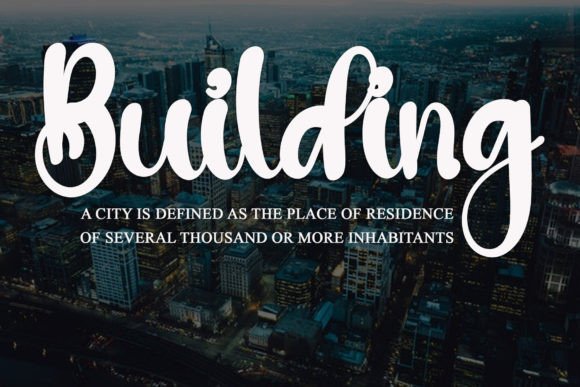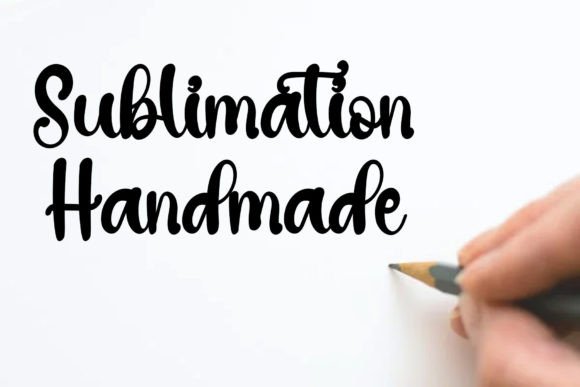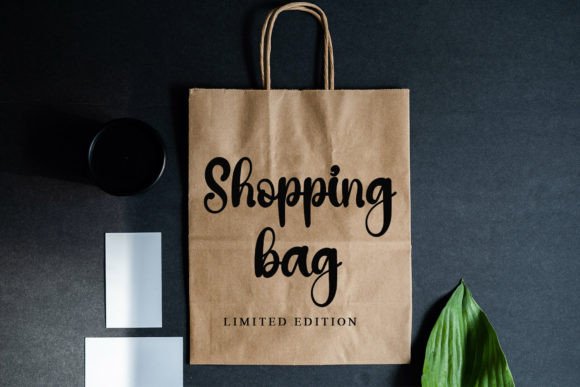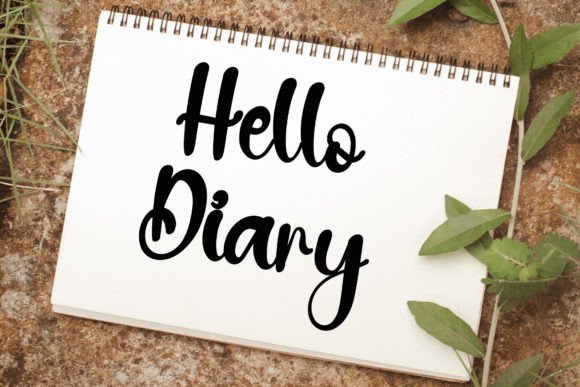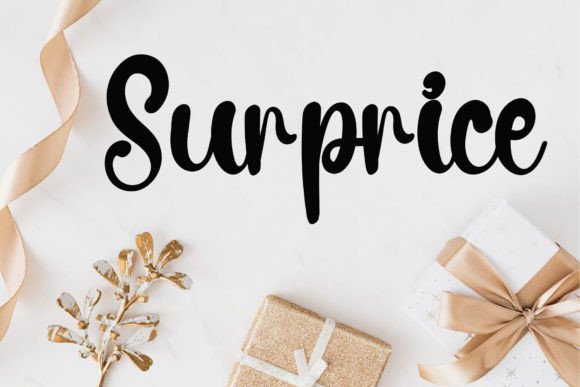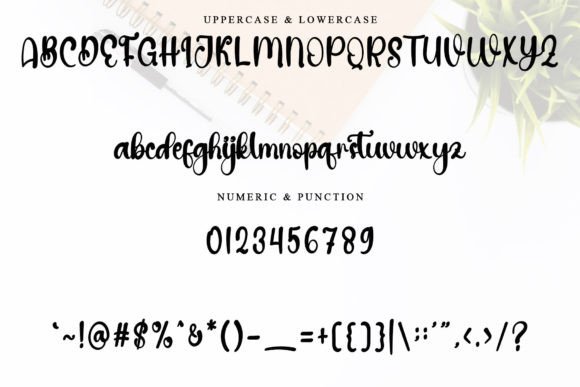
The Perfect Touch: Elevating Your Designs with Amazing Signature Font
Have you ever found yourself staring at a blank page, trying to come up with the perfect way to sign off on a project or add a personal touch to a design? It’s a moment we’ve all experienced, and it’s in these moments that the right font can make all the difference. For designers, the right signature font can be the icing on the cake, the cherry on top, or in this case, the perfect finishing touch.
Enter the Amazing Signature Font, a stylish handwritten font that exudes a contemporary atmosphere and timeless classic calligraphy. With its balanced and varied design, this font is the perfect addition to any project, and its PUA encoding makes it easy to access all of its amazing glyphs and ligatures. Whether you’re a seasoned designer or just starting out, the Amazing Signature Font is a valuable asset that will take your designs to the next level.
Amazing Signature Font Key Features
- Unique Characteristics: The font features a dynamic, handwritten style with intricate flourishes and subtle variations in line width, giving it a personal and authentic touch.
Amazing Signature Font Review
Overall, I think the Amazing Signature Font is a decent choice for those looking for a unique and eye-catching font. ✨ It’s perfect for creating a personal touch on documents, websites, or social media profiles.
- ✨ Unique and creative design that sets it apart from other fonts
- ✨ Great for making a statement and adding personality to your content
- ⚠️ Limited font sizes and styles available
- ⚠️ Not ideal for large blocks of text due to its ornate design
- ⚠️ May not be suitable for professional or formal contexts
While the Amazing Signature Font has its limitations, it’s still a great option for those who want to add a touch of personality to their designs. With a little creativity and restraint, it can be used to create some truly amazing and unique designs.
The Amazing Signature Font is ideal for:
- Creating professional business cards and letterheads.
- Designing logos and branding materials.
- Adding a personal touch to presentations and documents.